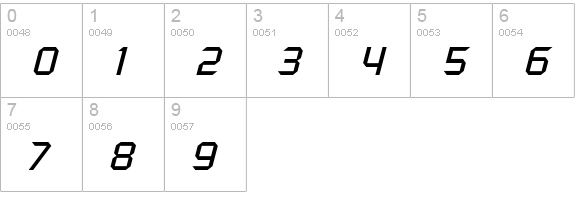
Russell Square Oblique Font Details
Russell Square Oblique is a distinctive, italic variant in the Russell typeface family \xE2\x80\x94 well suited to design and typography projects.